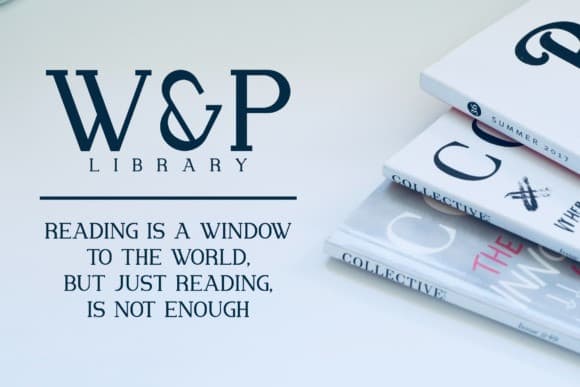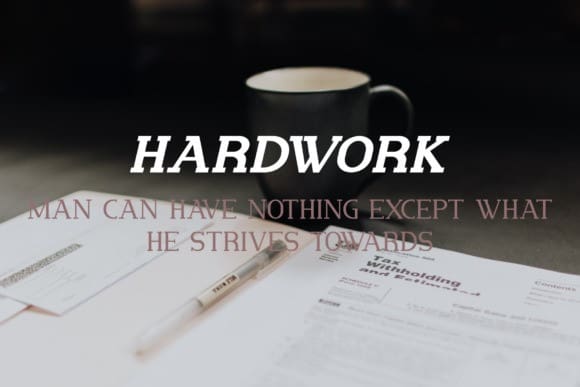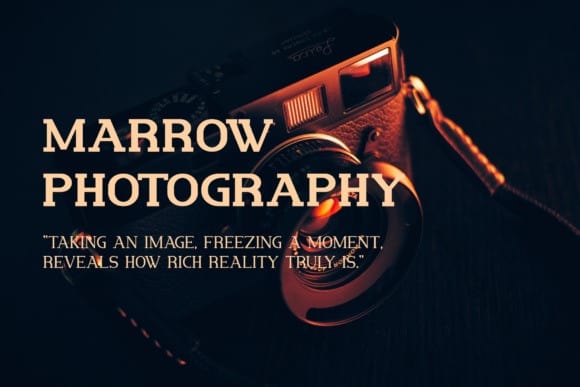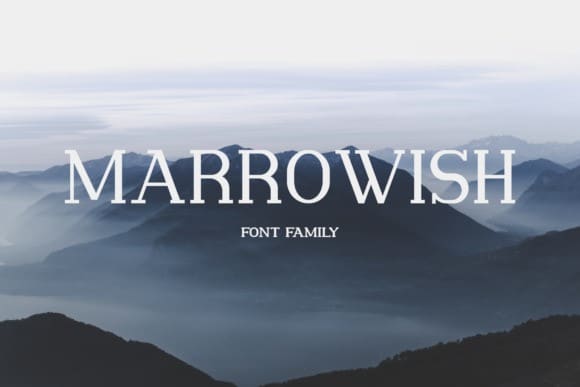
Marrowish Slab Serif Font is special designed for branding, bringing the best out of two collection together. Offering all the basic styles you will need for a successful project. It is a script from the designer Abdurrasyidismail. It’s a cute slab serif font. With its neat and beautiful arrangement of letters, this typeface will look outstanding in both formal and non-formal designs.
Marrowish